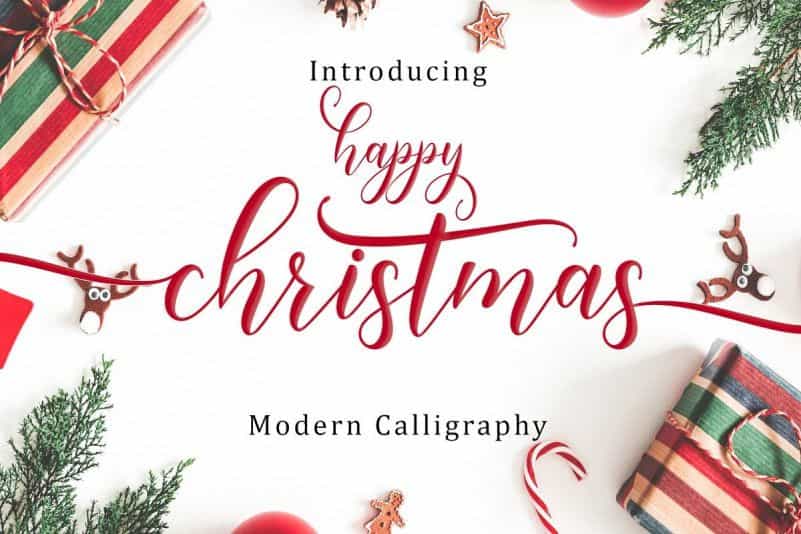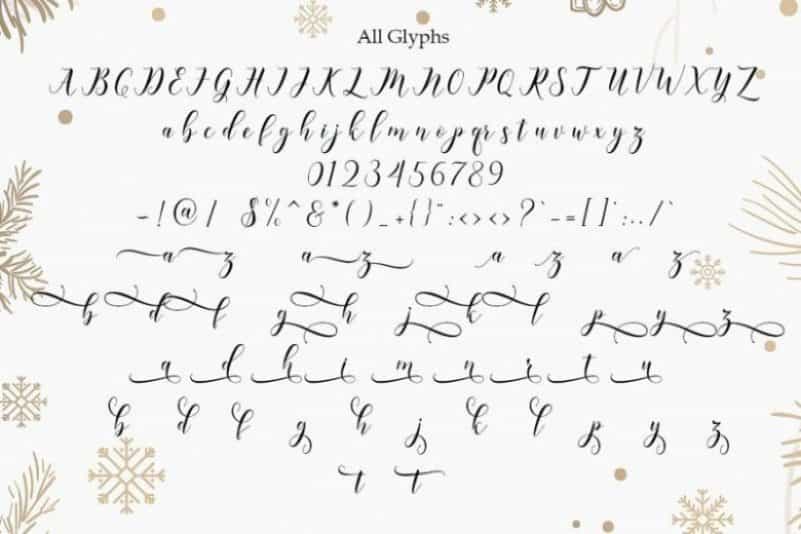
Discover Happy Christmas Font, part of the Calligraphy Christmas collection—a versatile and unique font perfect for adding a personal touch to your projects. Download it for free and enjoy crafting designs with style, from invitations to social media posts. This font is available exclusively for personal use, giving you the freedom to create without limits. Unlock your creativity with Happy Christmas Font today!
This is the best happy Christmas font and happy new year font. A Christmas calligraphy font for all your holiday designs and projects this season! This is a font for your projects! This winter font will be suitable for any cards, prints, invitations, arrange illustration, and decoration.